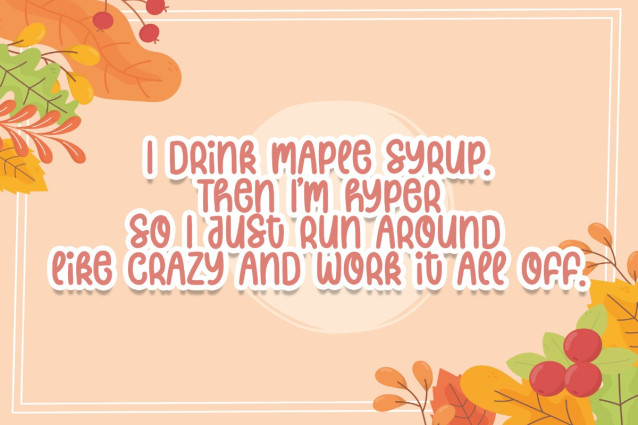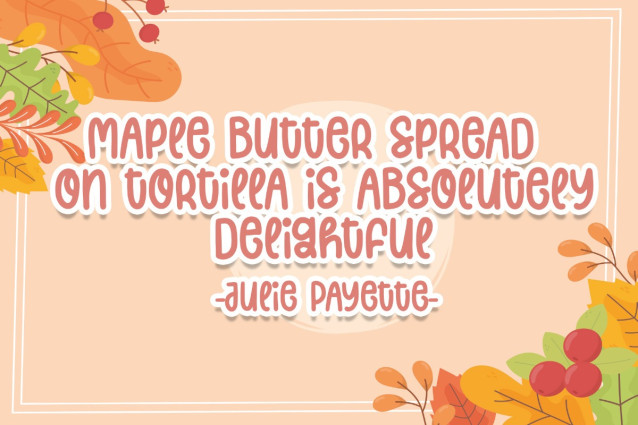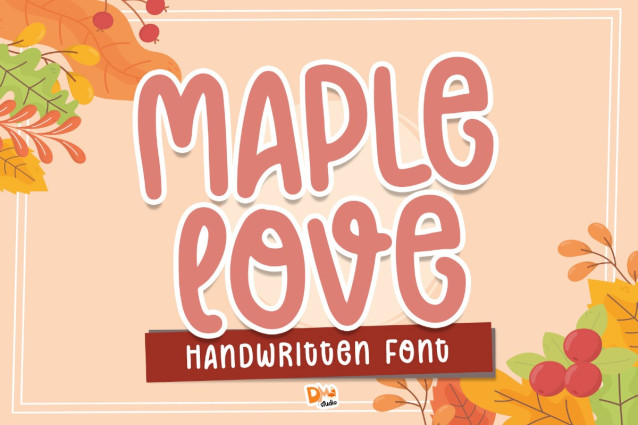
Maple Love Font
Maple Love Font is a captivating and versatile typeface designed to infuse your designs with warmth and charm. With its graceful letterforms inspired by nature’s beauty, this font is perfect for a variety of projects, including wedding invitations, branding, and more. Elevate your designs with the romantic and timeless aesthetic of the Maple Love Font.